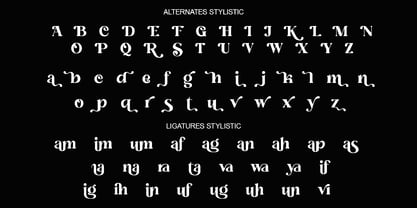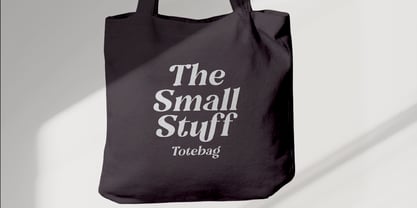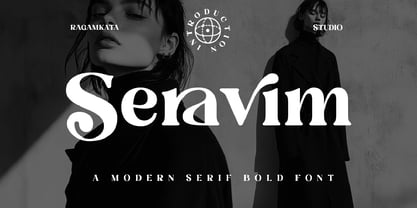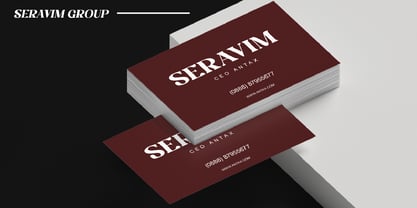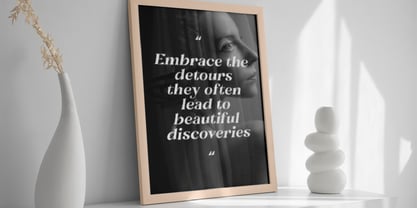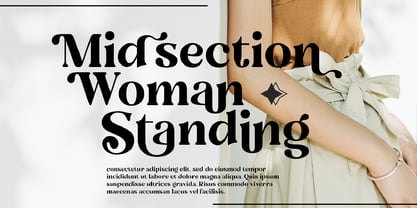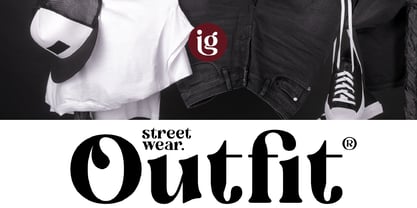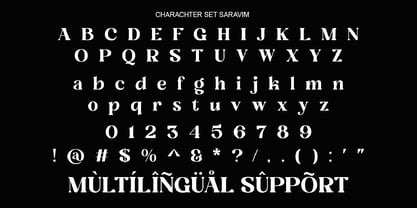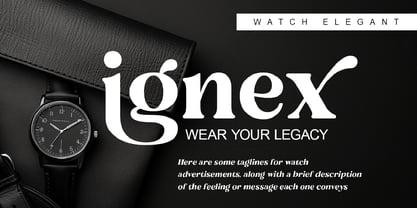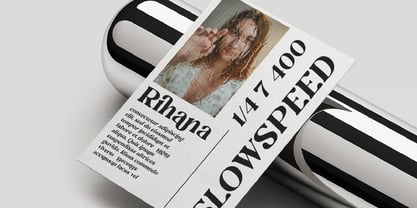
Seravim
by RagamKata
The Seravim Font Family was designed by Yogiswhara Dio Prakoso Riadi and published by RagamKata. Seravim contains 2 styles and family package options. More about this family
Seravim is a modern bold serif font will bring back the classic atmospheres of vintage ads and old personal computers! Advercase is your new go-to font for that authentic retro look in your artwork. It's perfect for creating eye-catching typographic artwork, and works great as a web font for online projects. Designed with love and attention to meet the needs of creative professionals, it offers the freedom to design anything that needs a retro, vintage feel while maintaining an elegant, contemporary edge.
- Stylistic Alternates
- Stylistic Ligatures
- Multilingual Support